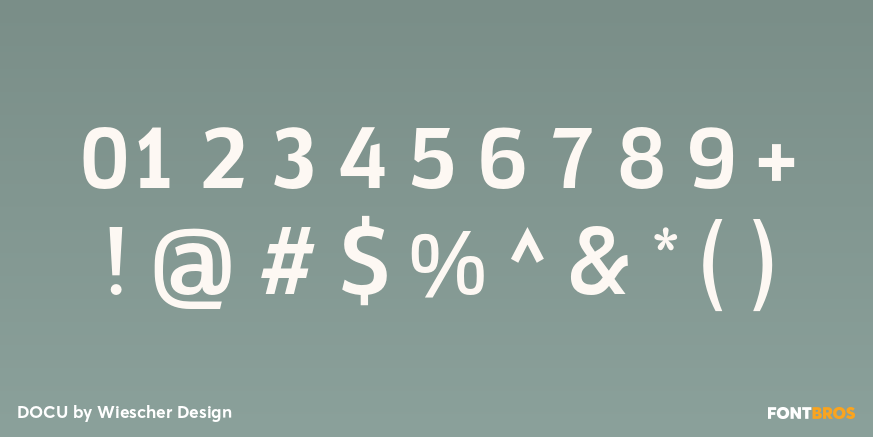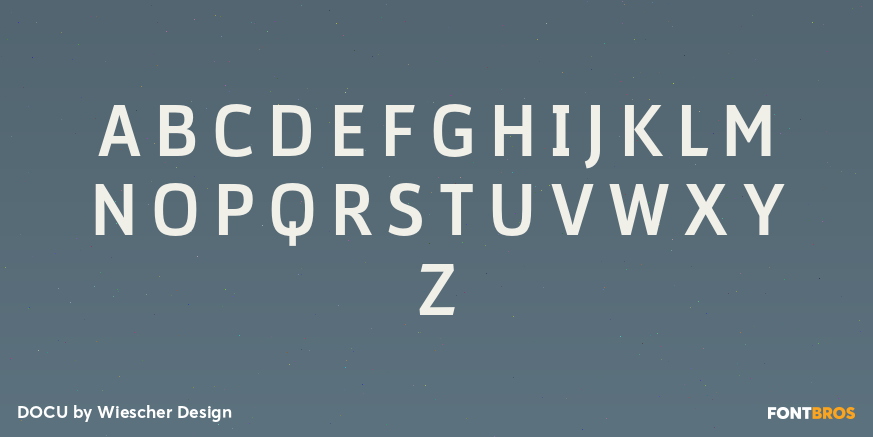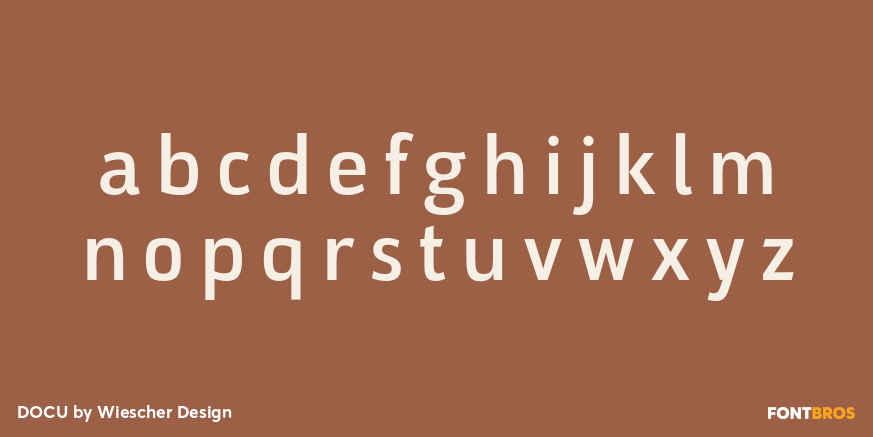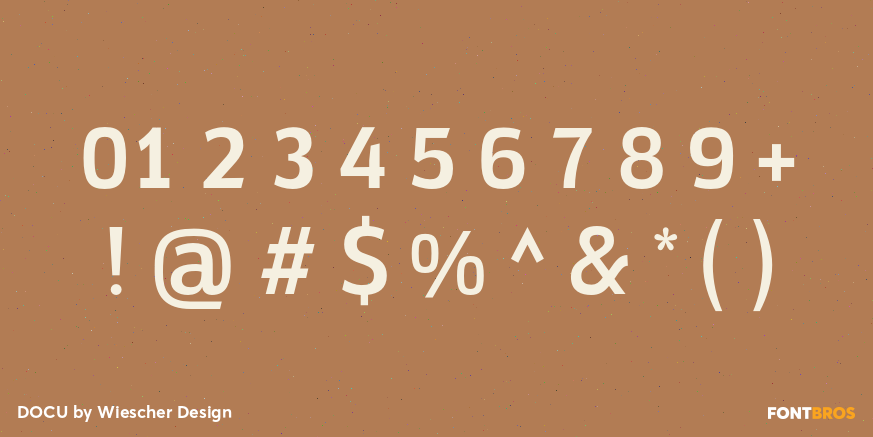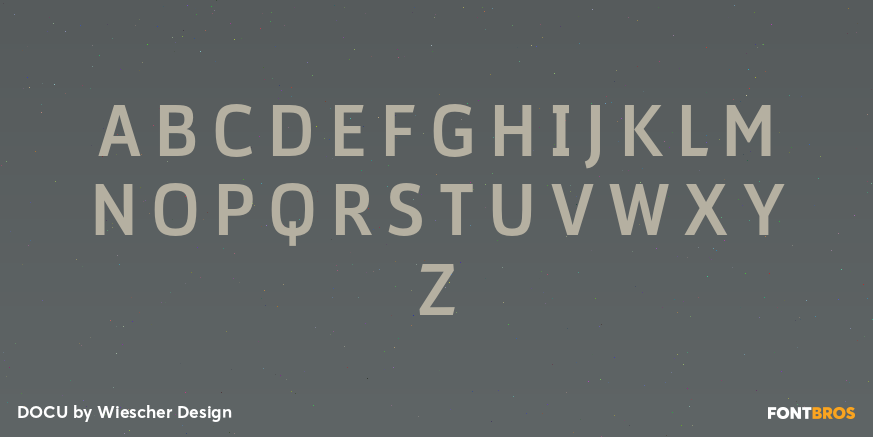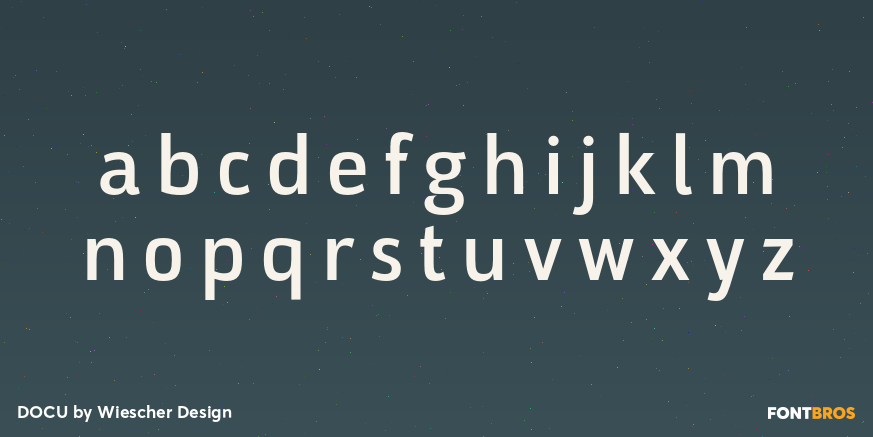
DOCU
Font Family by Wiescher Design
Buy NowDOCU is my font for everything office and document. Its narrow, yet open design is perfectly suited to put a lot of text into small areas. The fonts in the DOCU family have fantastic legibility. The fonts have over 700 glyphs, a full set of smallcaps, lots of ligatures and I added table-aligning-numbers in normal- and oldstyle. These fonts can be used in the entire latin-world. Docu is a real workhorse. I am selling the font family at an exceptionally low price, the single weights come in pairs only and they too are a very reasonable offer. Enjoy!